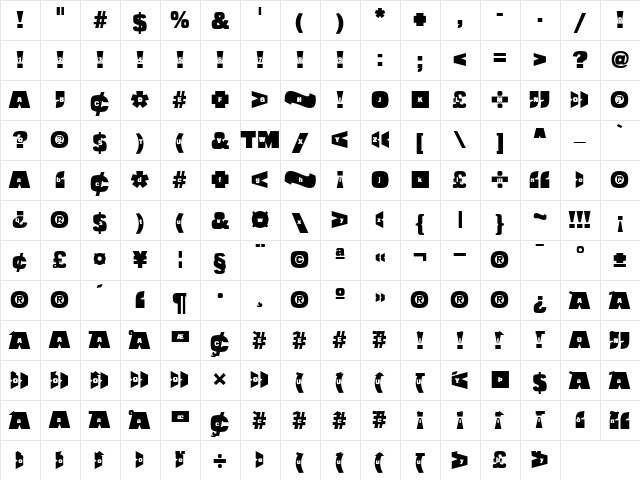
Populist Noise Regular
Design Context for Populist Noise Typeface
Populist Noise is a composed and adaptable typeface that performs quietly and consistently across a wide range of design contexts.